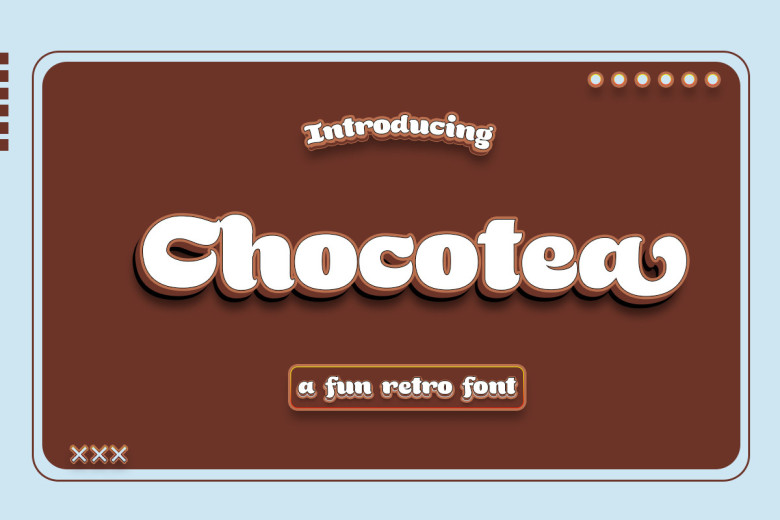
Chocotea Font
Chocotea features an adorable Retro font with vibrant colors. This font exudes authenticity and playfulness and would be an excellent addition to any school or children’s project requiring authentic fonts. Use its chunky form to bring designs to life!
Chocotea Retro Font